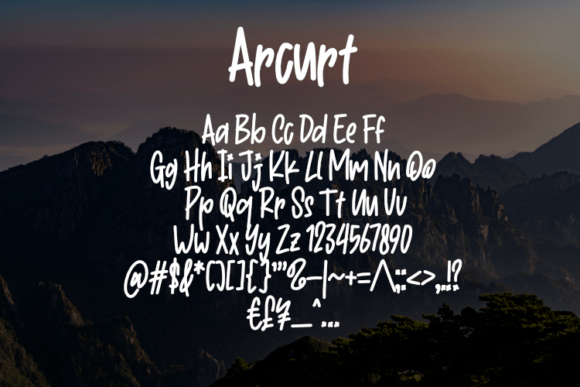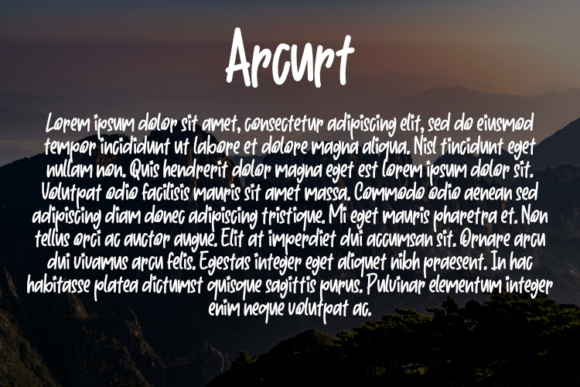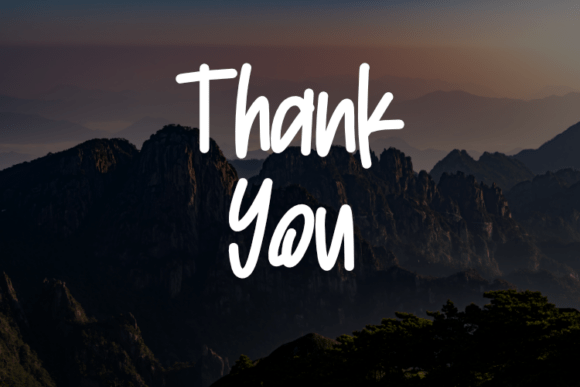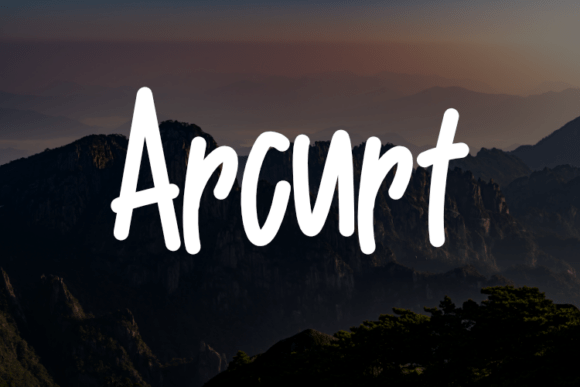
The Arcurt Font: A Designer’s New Best Friend
As a designer, I know how frustrating it can be to find the perfect font. You want something that will make your design pop, but also be easy to read across a wide range of media. That’s where Arcurt comes in – a modern and elegant typeface designed specifically for flexibility and excellent readability.
What Makes Arcurt Special?
Arcurt is a game-changer, and here’s why:
- ✅ Excellent readability: Arcurt is designed to be easy to read, even at small font sizes, making it perfect for body text, headings, and more.
- 💡 OpenType features: Arcurt supports a range of OpenType features, including glyphs, stylistic alternates, and more, giving you endless creative possibilities.
- ✨ The elegant and modern design of Arcurt makes it perfect for a wide range of design projects, from branding to web design.
- ✅ The font is incredibly versatile, with a range of weights and styles to choose from.
- 💡 The OpenType features are a game-changer, allowing for endless creative possibilities.
While Arcurt is an amazing font, there are a few things to keep in mind:
- ⚠️ Some users may find the font a bit too slender for certain applications, such as body text in small font sizes.
- 🤔 The font may not be the best choice for very long-form text, such as novels or lengthy articles.
The Backstory Behind Arcurt
Arcurt was designed with the modern designer in mind. The font’s creator wanted to create a typeface that was both elegant and flexible, perfect for a wide range of design projects. With its sleek lines and modern aesthetic, Arcurt is sure to become a favorite among designers.
Q: Is Arcurt suitable for body text?
A: While Arcurt is an elegant and modern font, it may not be the best choice for very long-form text. However, it’s perfect for shorter body text and headings.